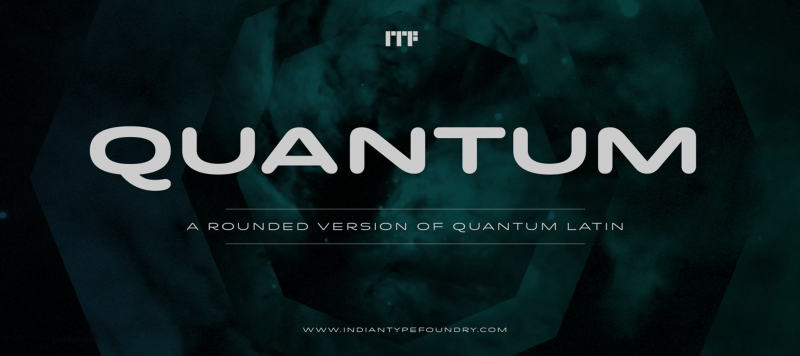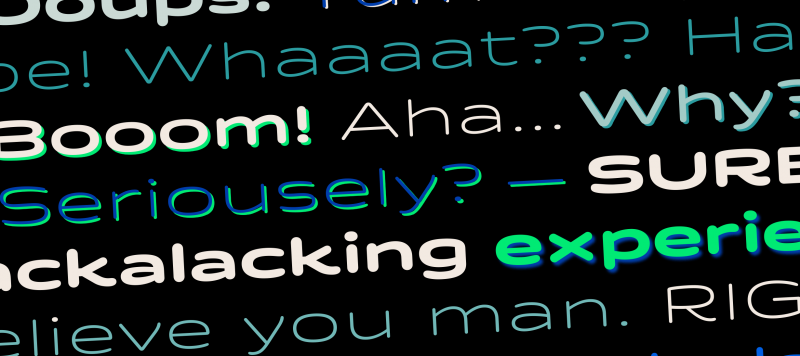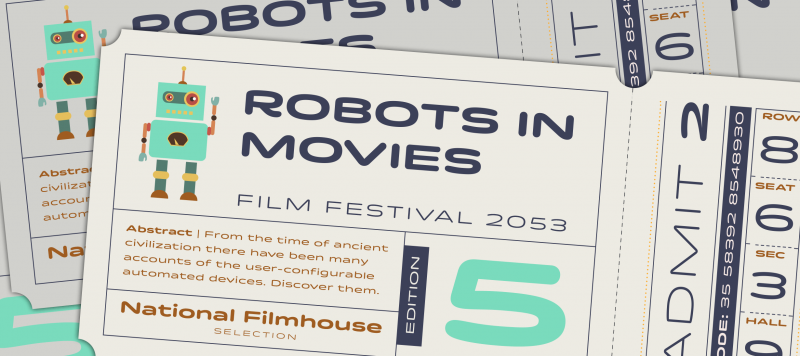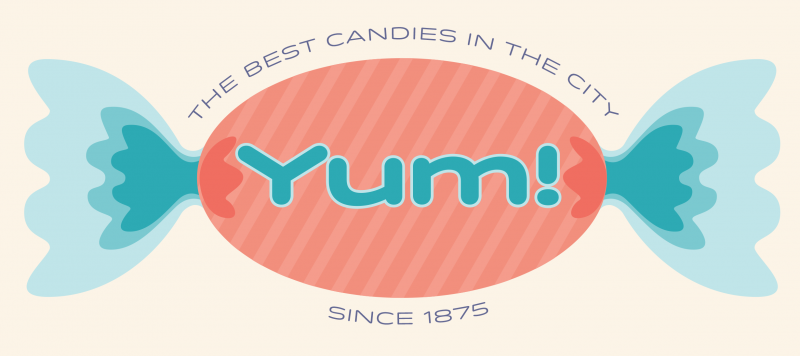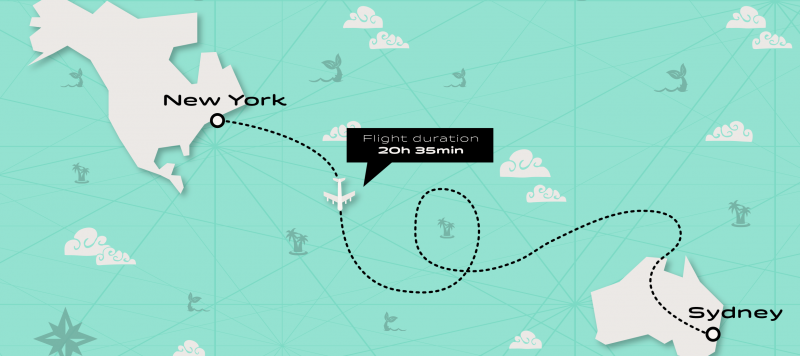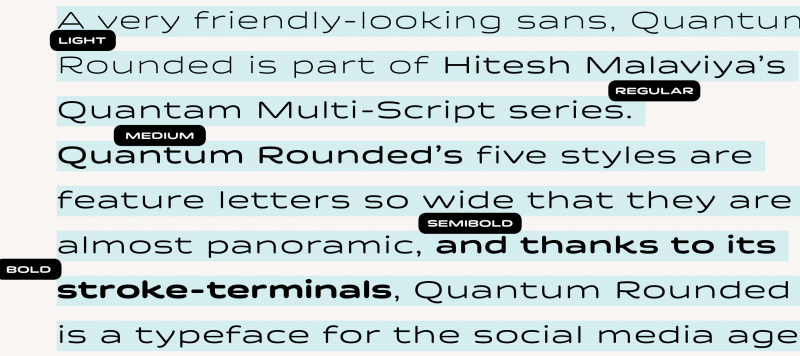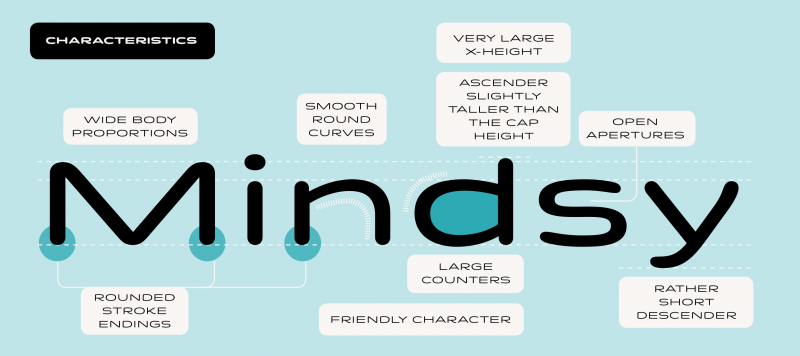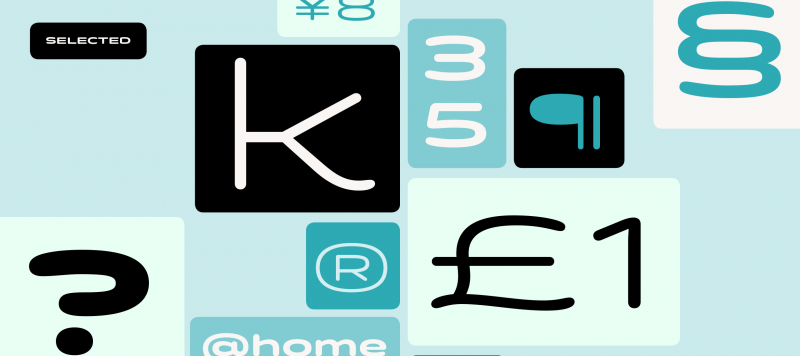
A very friendly-looking sans, Quantum Rounded is part of Hitesh Malaviya’s Quantam Multi-Script series. Quantum Rounded’s five styles are feature letters so wide that they are almost panoramic, and thanks to its stroke-terminals, Quantum Rounded is a typeface for the social media age. Despite having the bones of an extended sans, the letterforms in Quantum Round aren’t too technical in their appearance. Don’t overlook the tails on ‘K,’ ‘Q,’ ‘R,’ and ‘k’!
Family Name Quantum Rnd
Designer(s) Hitesh Malaviya (Rocky)
Classification Display, Sans